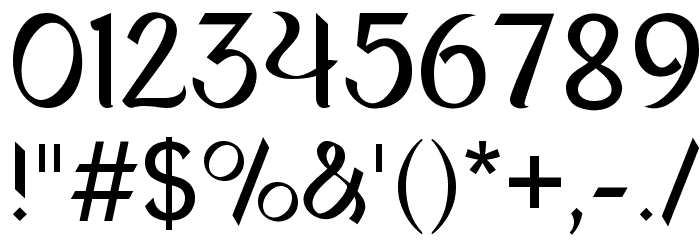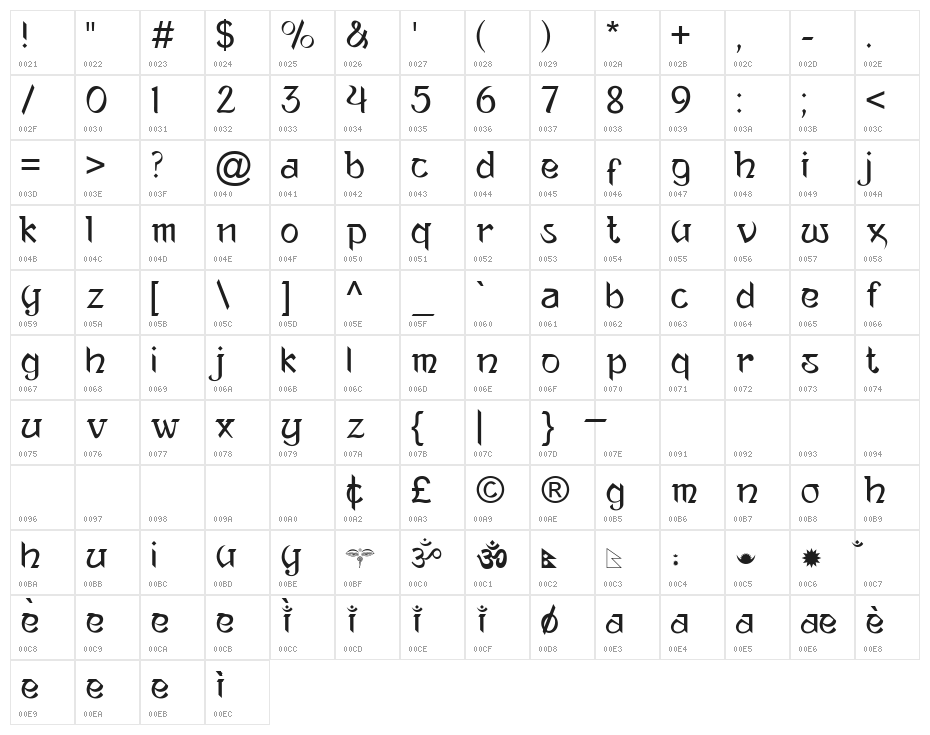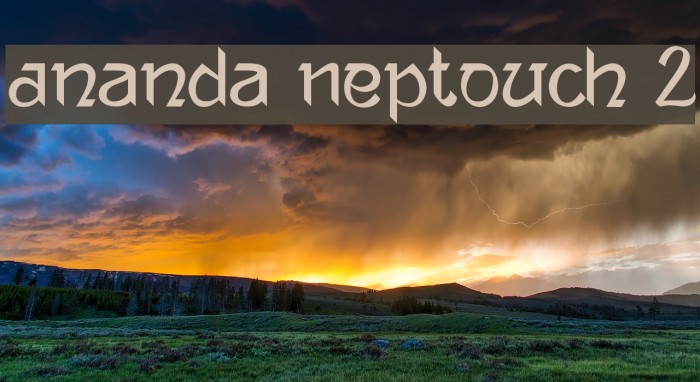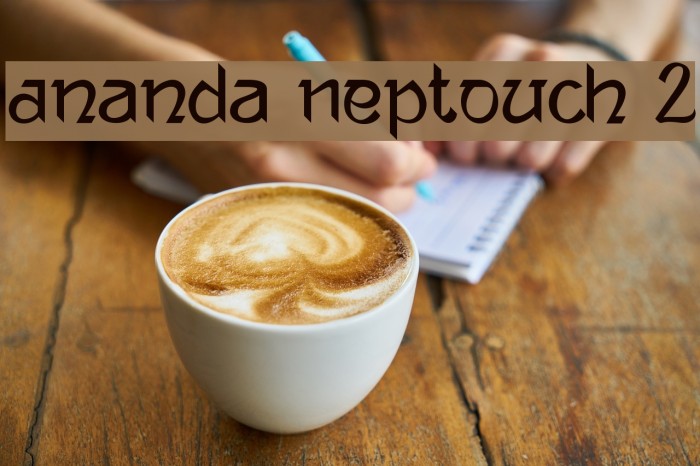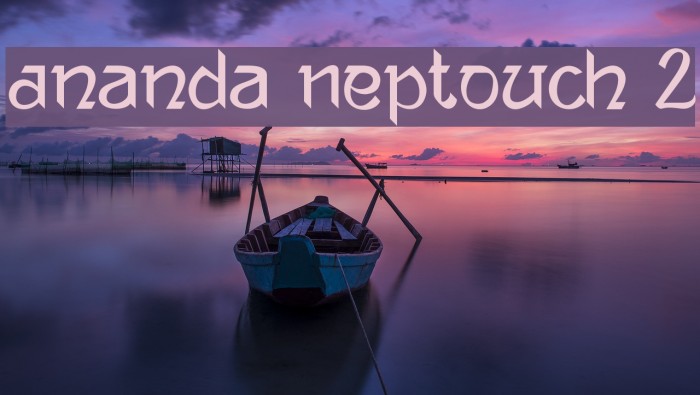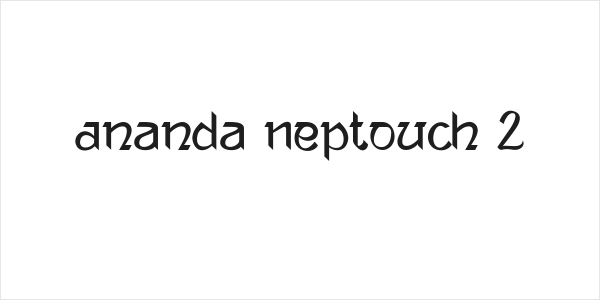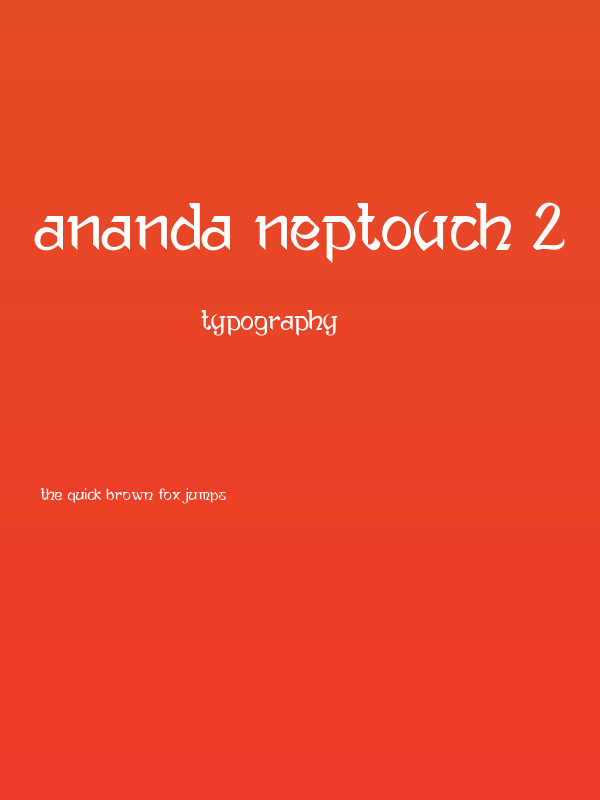
Ananda Neptouch 2 Font
Ananda Neptouch 2 Description
This font features a unique blend of modern and classic elements, characterized by its sharp, angular serifs and distinct geometric shapes. The uppercase letters exhibit a bold presence with strong vertical lines and subtle curves, while the lowercase letters maintain a consistent style with a slightly more rounded appearance. The numerals are designed with a similar aesthetic, providing a cohesive look across all characters. Special characters are crafted with precision, adding to the font's versatility. The overall design is both striking and legible, making it suitable for a variety of applications.